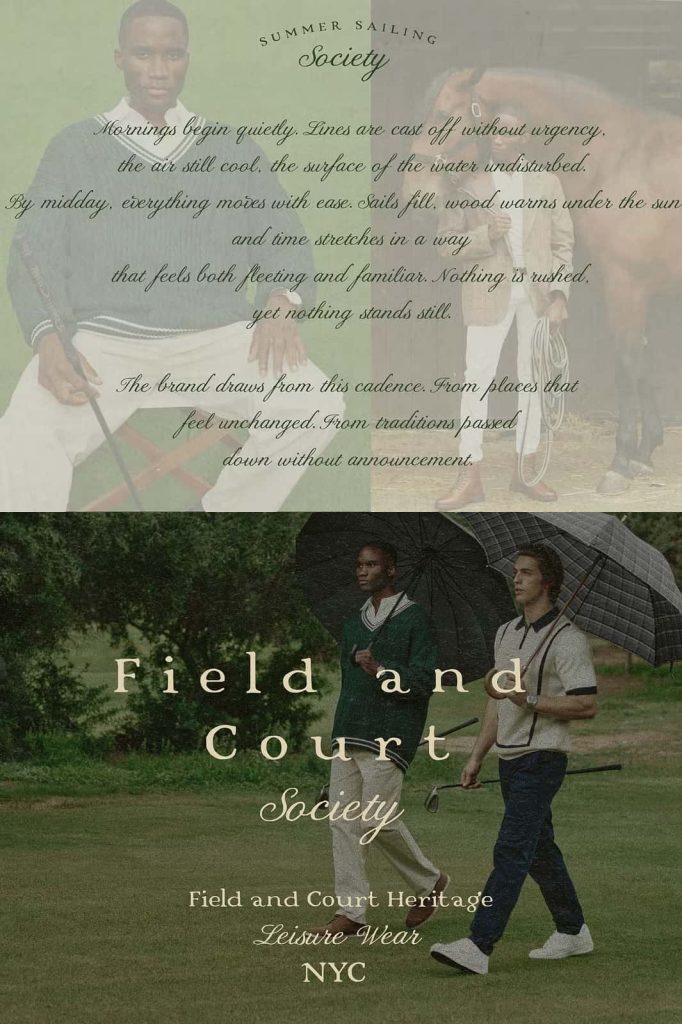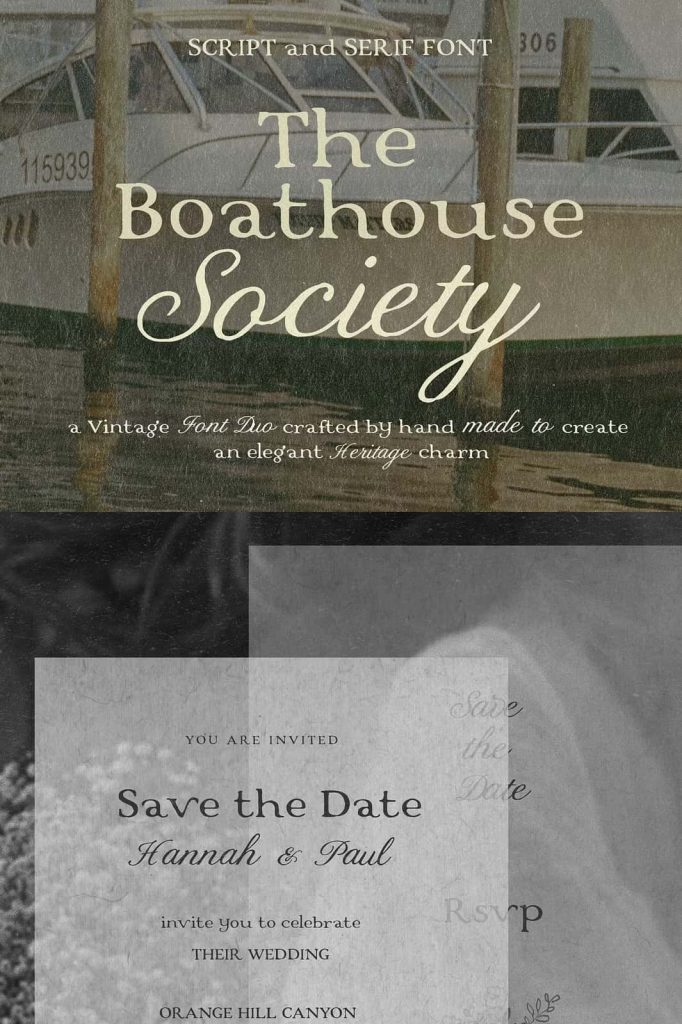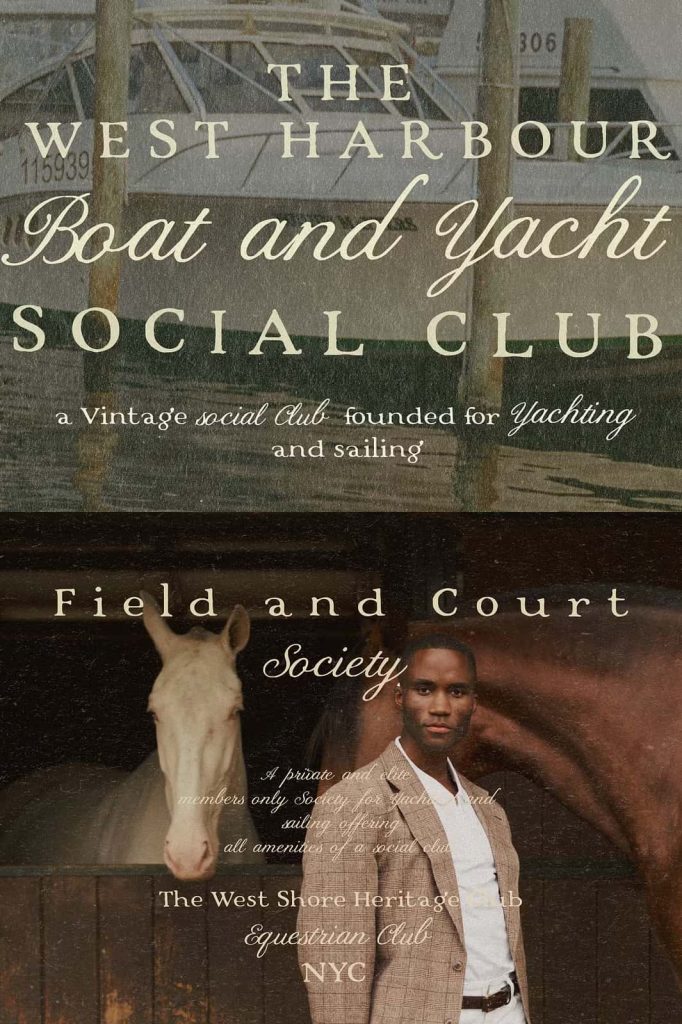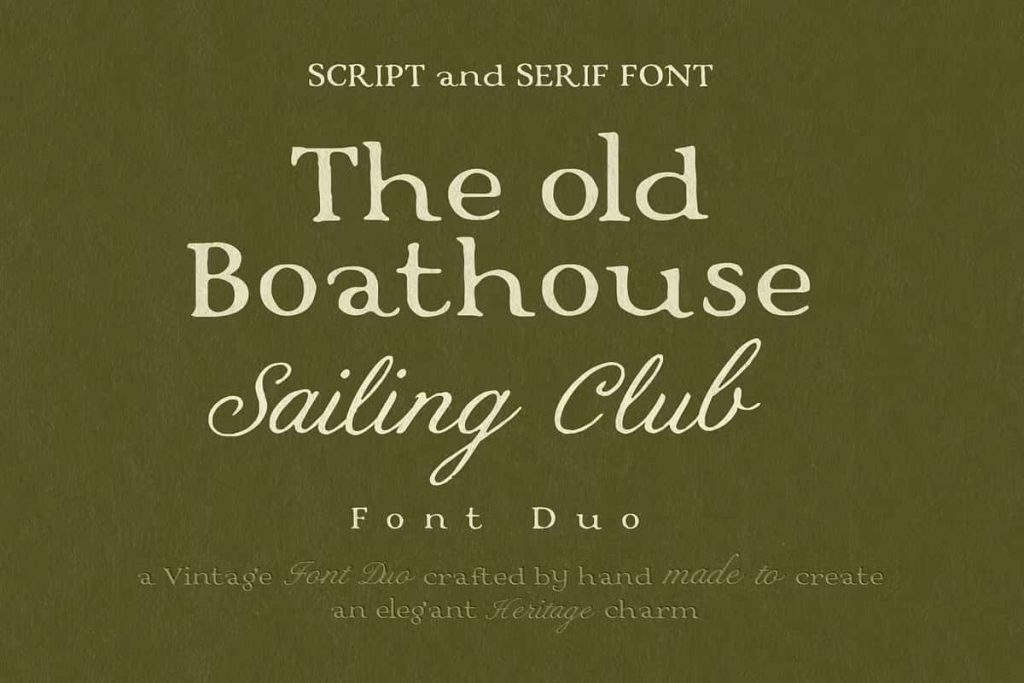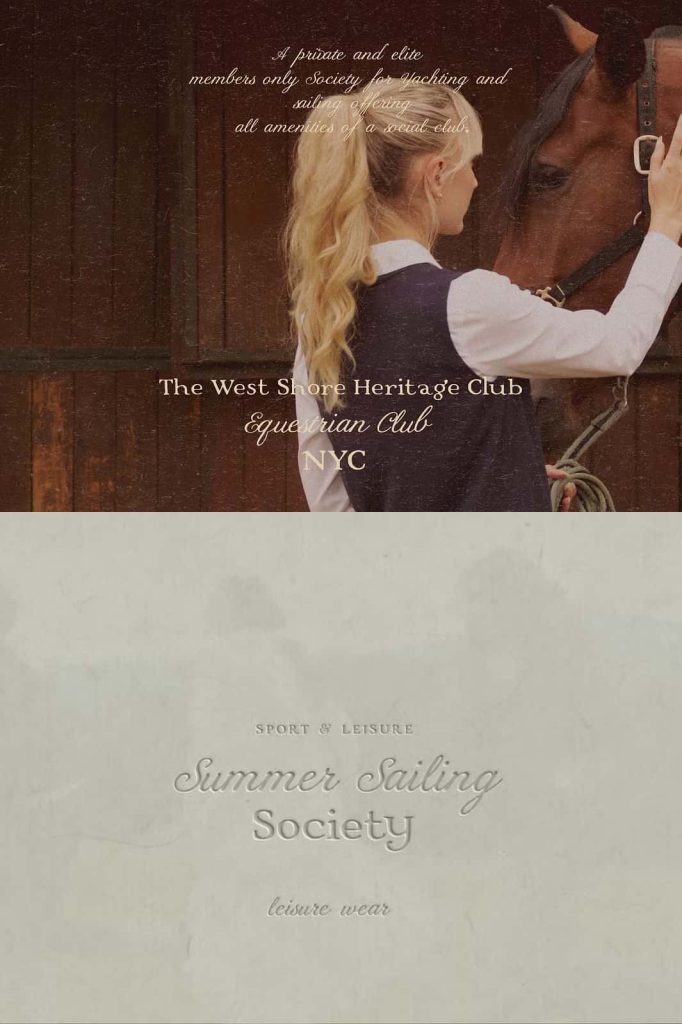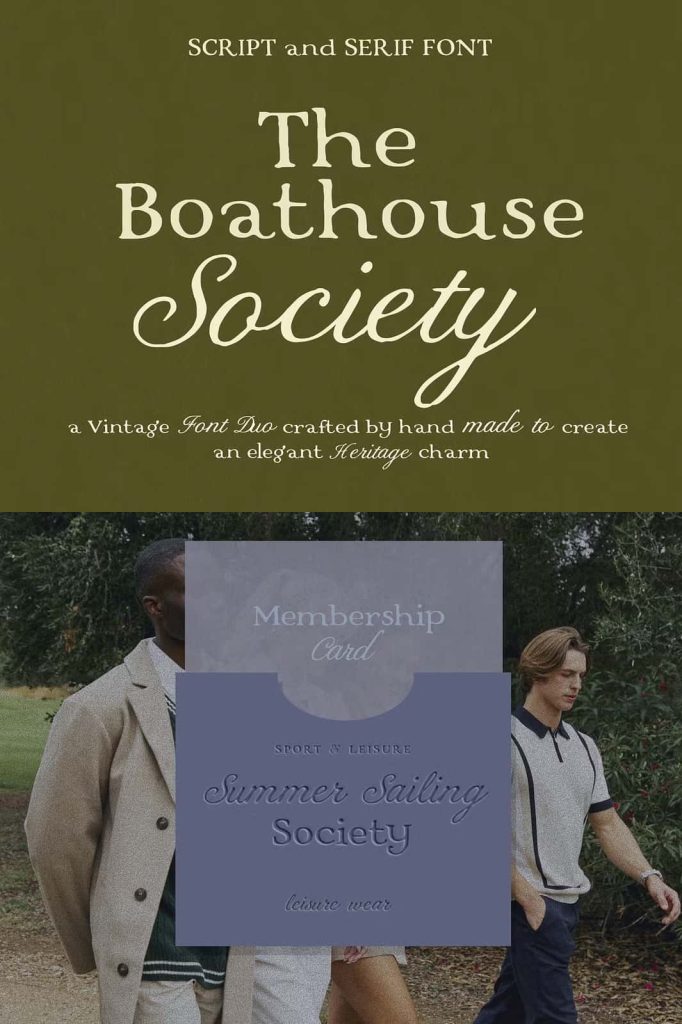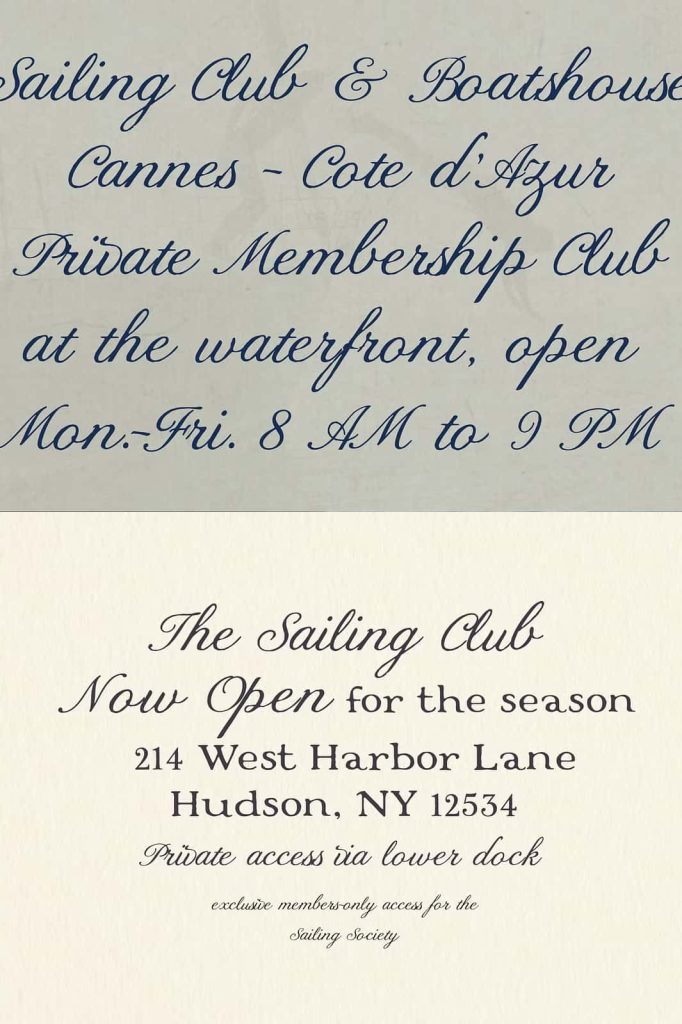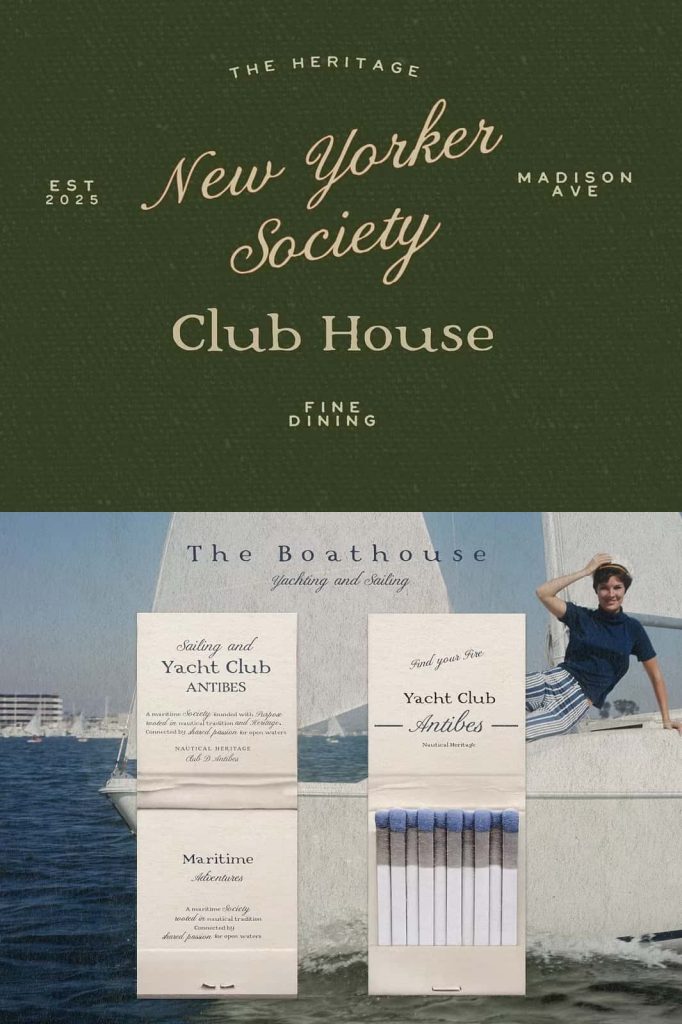
The Boathouse & Sailing Club Font Duo – Elegant Vintage Serif & Calligraphy Script
The Boathouse & Sailing Club Font Duo is a beautifully handcrafted typeface collection that combines the timeless sophistication of a vintage serif with the graceful elegance of a flowing calligraphy script. Inspired by coastal heritage, classic sailing traditions, and the understated appeal of quiet luxury, this font duo brings warmth, refinement, and authenticity to every creative project.
Designed with exceptional attention to detail, every letter reflects the charm of traditional craftsmanship while maintaining the versatility required for modern design. The combination of structured serif characters and expressive handwritten script creates endless opportunities for designers to build balanced, sophisticated compositions. Whether you are creating premium branding, wedding stationery, editorial layouts, or luxury packaging, The Boathouse & Sailing Club delivers a polished and memorable visual identity.
Inspired by Coastal Heritage and Timeless Elegance
The design philosophy behind The Boathouse & Sailing Club celebrates the enduring beauty of maritime culture. Drawing inspiration from historic sailing clubs, weathered wooden docks, classic yachts, and vintage membership certificates, this font duo captures the atmosphere of refined coastal living.
Rather than relying on excessive ornamentation, the typefaces embrace subtle sophistication. Slightly softened edges, carefully balanced proportions, and elegant letterforms create a timeless appearance that feels established without becoming outdated. The result is typography that conveys confidence, heritage, and premium quality while remaining highly approachable.
This balance between classic tradition and contemporary usability allows designers to create visuals that feel luxurious, authentic, and effortlessly stylish.
A Beautiful Combination of Serif and Script Typography
The Boathouse & Sailing Club includes two complementary styles that work seamlessly together. The vintage serif provides structure, stability, and readability, while the calligraphy script introduces personality, movement, and elegance. Together, they create eye-catching typography that naturally guides the viewer’s attention.
The serif font serves as the perfect foundation for headlines, logos, product names, and editorial titles. Its classic construction communicates professionalism and heritage, making it suitable for both print and digital applications.
The accompanying script font adds an expressive handwritten touch that enhances invitations, signatures, luxury branding, labels, and decorative typography. The natural flow of the script pairs beautifully with the refined serif, creating sophisticated layouts without requiring additional decorative elements.
Perfect for Luxury Branding and Premium Identity Design
If your project requires elegance, authenticity, and timeless appeal, The Boathouse & Sailing Club offers an outstanding typographic solution. Its refined appearance immediately elevates brand perception while creating a memorable visual identity that resonates with premium audiences.
The font duo works exceptionally well for businesses and creative professionals seeking a classic yet distinctive aesthetic. Whether developing a boutique hotel identity, premium fashion label, artisan product line, luxury café, coastal resort, or lifestyle brand, this typeface collection delivers lasting visual impact.
The harmonious combination of serif precision and handwritten warmth creates branding that feels personal while maintaining a polished, high-end appearance.
Ideal Applications Include:
- Luxury brand identity
- Wedding invitations
- Save the date cards
- Editorial headlines
- Magazine layouts
- Book covers
- Vintage logo design
- Restaurant branding
- Coastal resort promotions
- Packaging design
- Product labels
- Greeting cards
- Premium stationery
- Certificates and membership cards
- Sports and leisure branding
Designed with Handcrafted Character
Every detail of The Boathouse & Sailing Club reflects careful craftsmanship. Rather than appearing mechanically perfect, the letterforms preserve subtle handcrafted qualities that make each composition feel natural and authentic.
The slightly softened edges contribute to a welcoming appearance while maintaining excellent clarity across different sizes. These carefully refined details allow the typefaces to communicate warmth and sophistication simultaneously, making them suitable for both formal and creative projects.
The handcrafted approach also enhances the script font, allowing every word to feel fluid and expressive while remaining highly legible.
Create Elegant Designs with Quiet Luxury
Quiet luxury has become one of the defining trends in modern design, emphasizing timeless quality over excessive decoration. The Boathouse & Sailing Club embraces this philosophy through restrained elegance, balanced typography, and refined visual rhythm.
Instead of demanding attention through elaborate styling, the font duo creates impact through thoughtful craftsmanship and harmonious proportions. This understated confidence makes it an excellent choice for premium brands seeking a sophisticated image that will remain relevant for years to come.
Whether used on embossed stationery, elegant packaging, refined editorial layouts, or luxury event materials, the fonts consistently communicate quality, heritage, and professionalism.
Excellent Performance Across Print and Digital Media
The Boathouse & Sailing Club has been designed to perform beautifully across a wide range of creative applications. The serif remains crisp and readable in large headlines, printed materials, and digital interfaces, while the calligraphy script preserves its graceful flow in invitations, branding, and decorative typography.
From business cards and brochures to websites and social media campaigns, this versatile font duo maintains visual consistency while adding character to every design. The complementary styles allow designers to establish clear typographic hierarchy while preserving a cohesive aesthetic throughout the entire project.
Why Choose The Boathouse & Sailing Club Font Duo?
The Boathouse & Sailing Club offers far more than a simple pairing of serif and script fonts. It represents a thoughtfully crafted design system inspired by coastal heritage, classic elegance, and timeless luxury. The combination of vintage sophistication and expressive calligraphy provides remarkable flexibility for designers working across branding, publishing, weddings, packaging, and editorial design.
If you are searching for typography that embodies refinement, craftsmanship, and enduring style, The Boathouse & Sailing Club Font Duo is an exceptional addition to your creative library. Its elegant balance of structure and personality ensures that every design communicates confidence, sophistication, and lasting visual appeal.